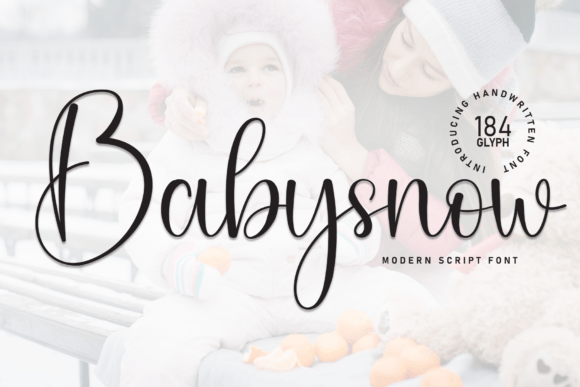
Introduction to Babysnow Font
Babysnow is a stylish handwritten script font that combines elegance with a modern flair.
Its flowing strokes and organic curves bring warmth and sophistication to any project Ideal for branding, invitations, and social media, this typeface adds a personal, refined touch with effortless charm.